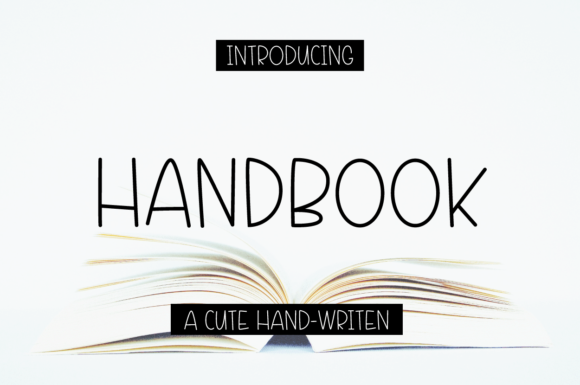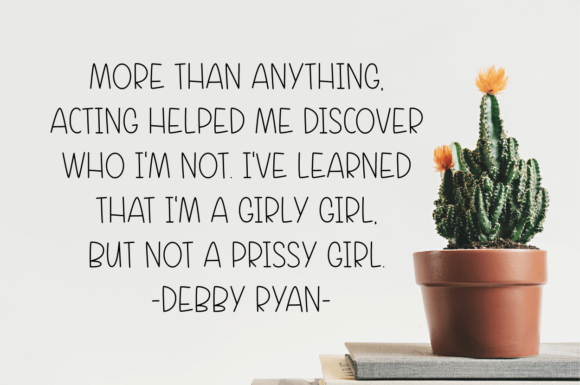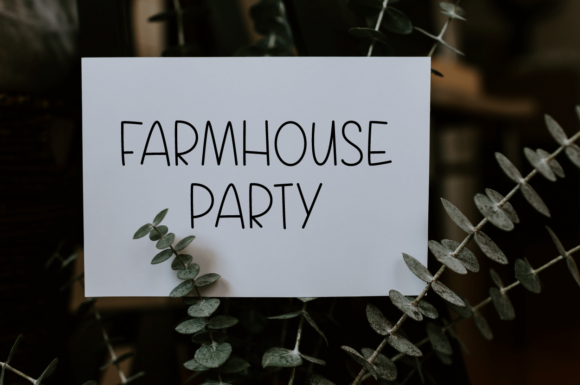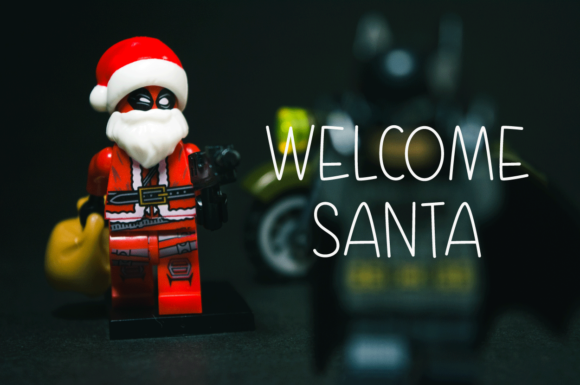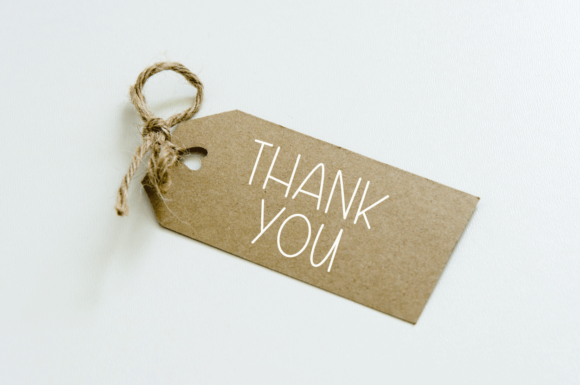
Handbook Font
About Handbook Font
Handbook is a simple and interesting handwritten font. Its friendly feel makes this font incredibly versatile, fitting a wide range of contexts. It looks stunning on thank you cards, quotes, greeting cards, logos, business cards, and every other design which needs a touch of art. Add it to your creative ideas, and notice how it makes them stand out!